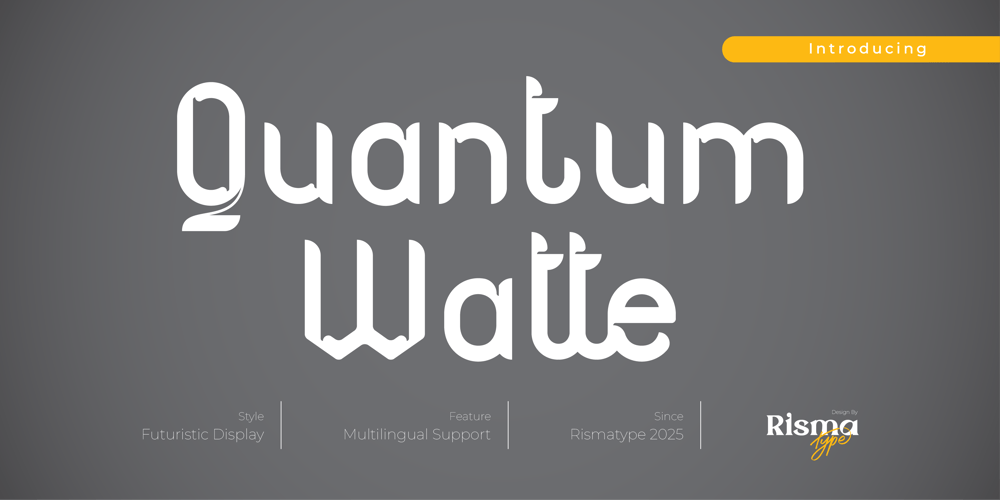
Quantum Watte
Quantum Watte font
Quantum Watte Font Family was designed by Risma Mulyasari and published by Risma Type. Quantum Watte contains 2 styles and family package options. ✨ Quantum Watte ✨Futuristic and Innovative Display FontQuantum Watte is a futuristic display font crafted to embody cutting-edge design and bold innovation. With its sleek geometry and dynamic forms, this font is ideal for projects that demand a forward-thinking and contemporary aesthetic, such as: Tech Branding & Logos: Make a visionary and impactful statement. Web & UI Designs: Enhance interfaces with modern precision. Posters & Advertising: Create attention-grabbing visuals that captivate. 💎 Redefine the future with every character of Quantum Watte.Bring a touch of futurism and innovation to your designs with a font that stands out in any application.